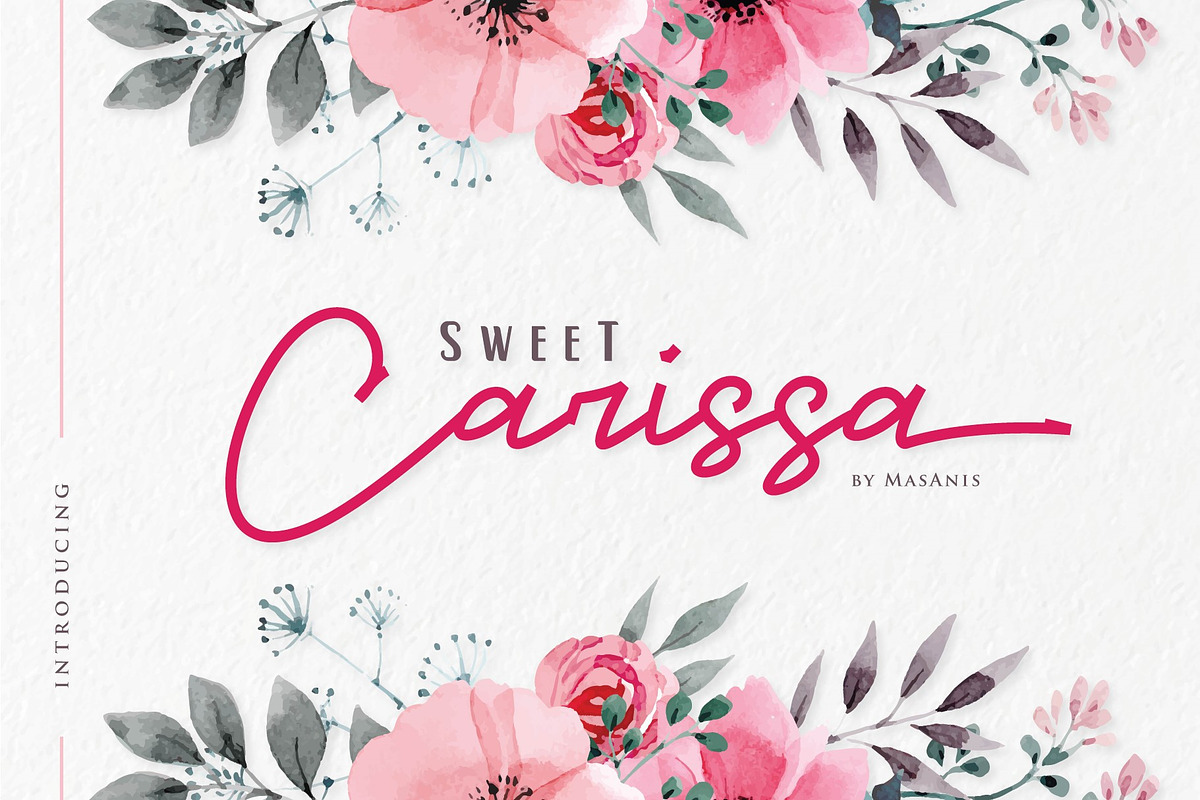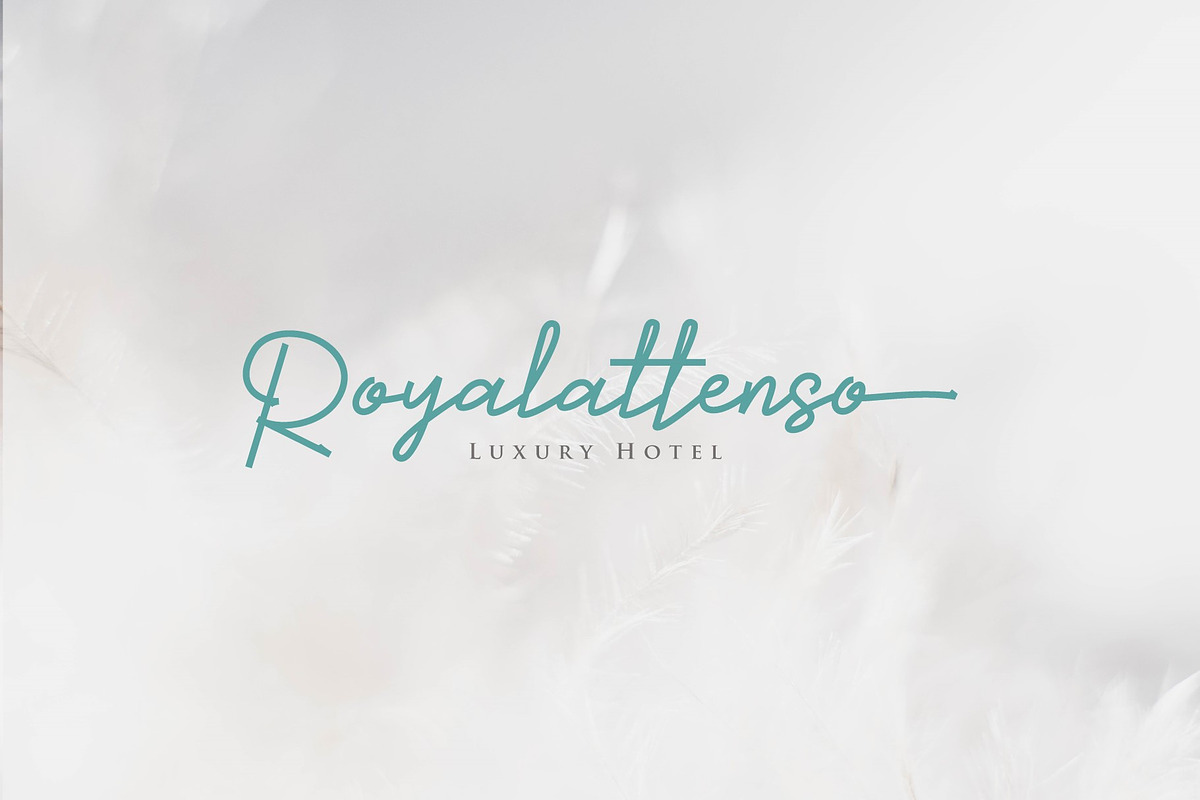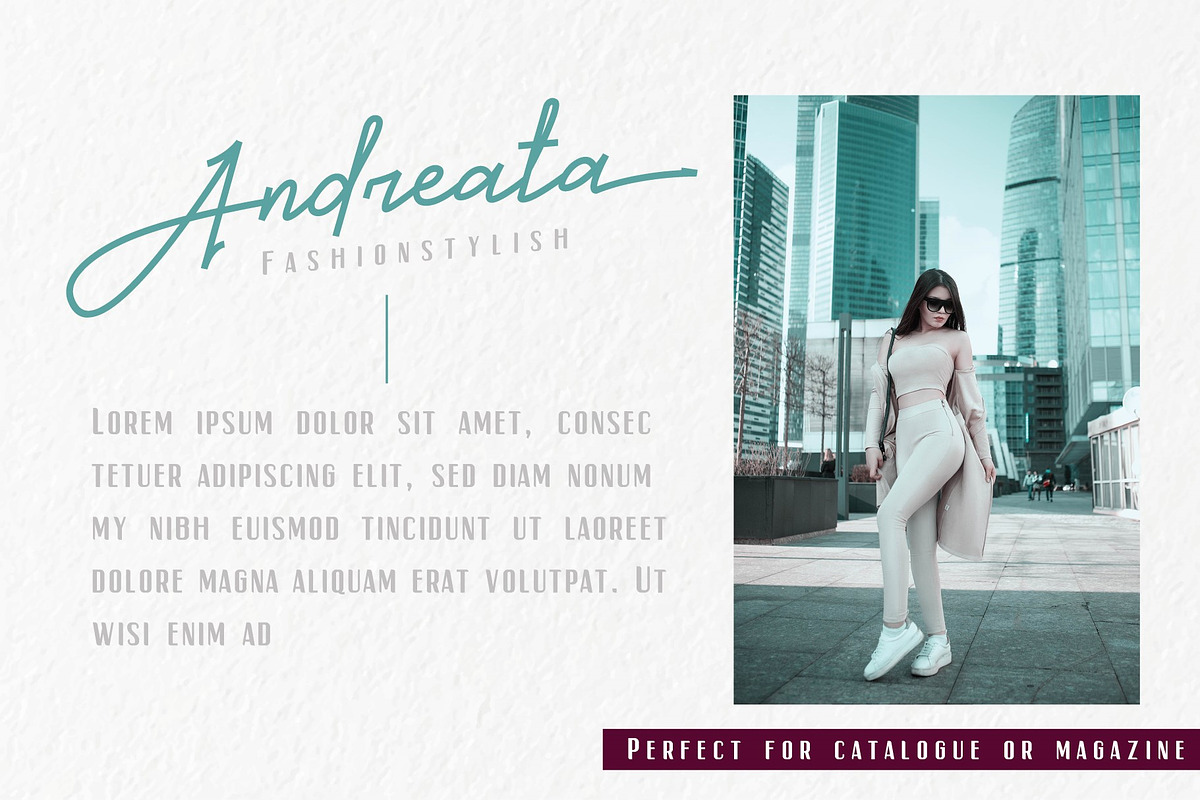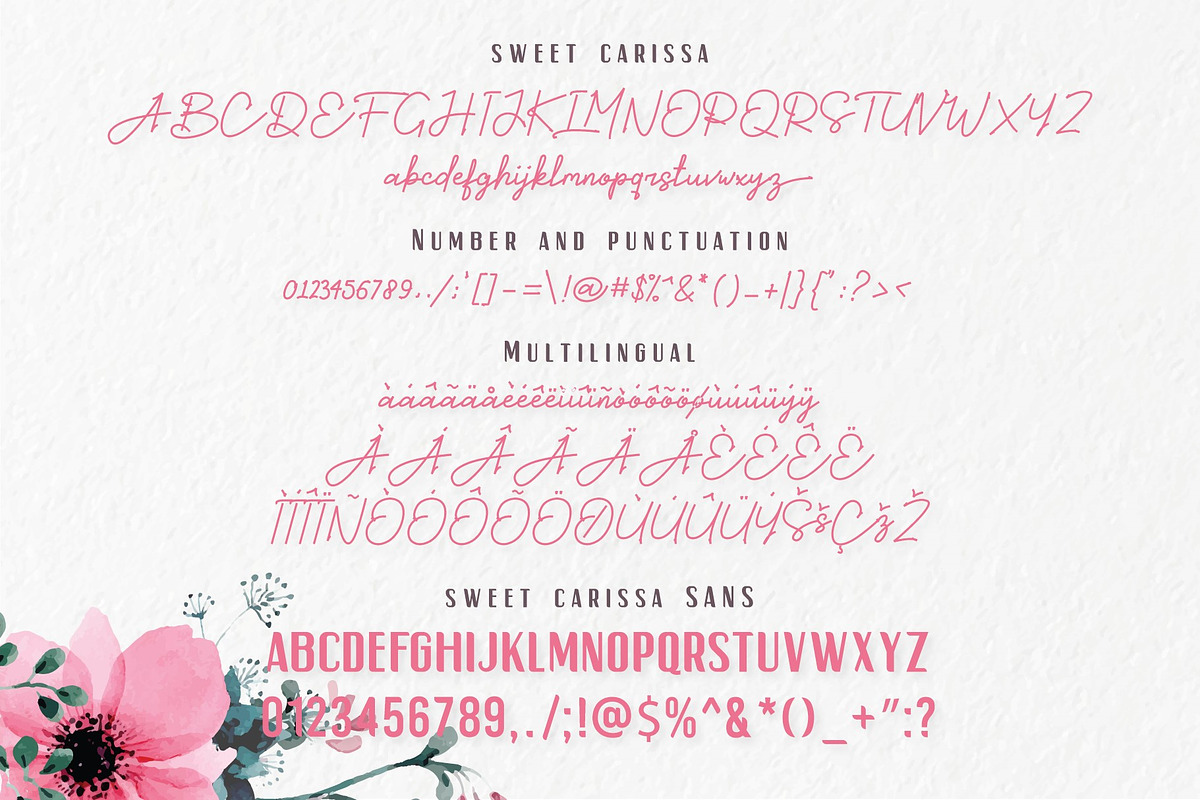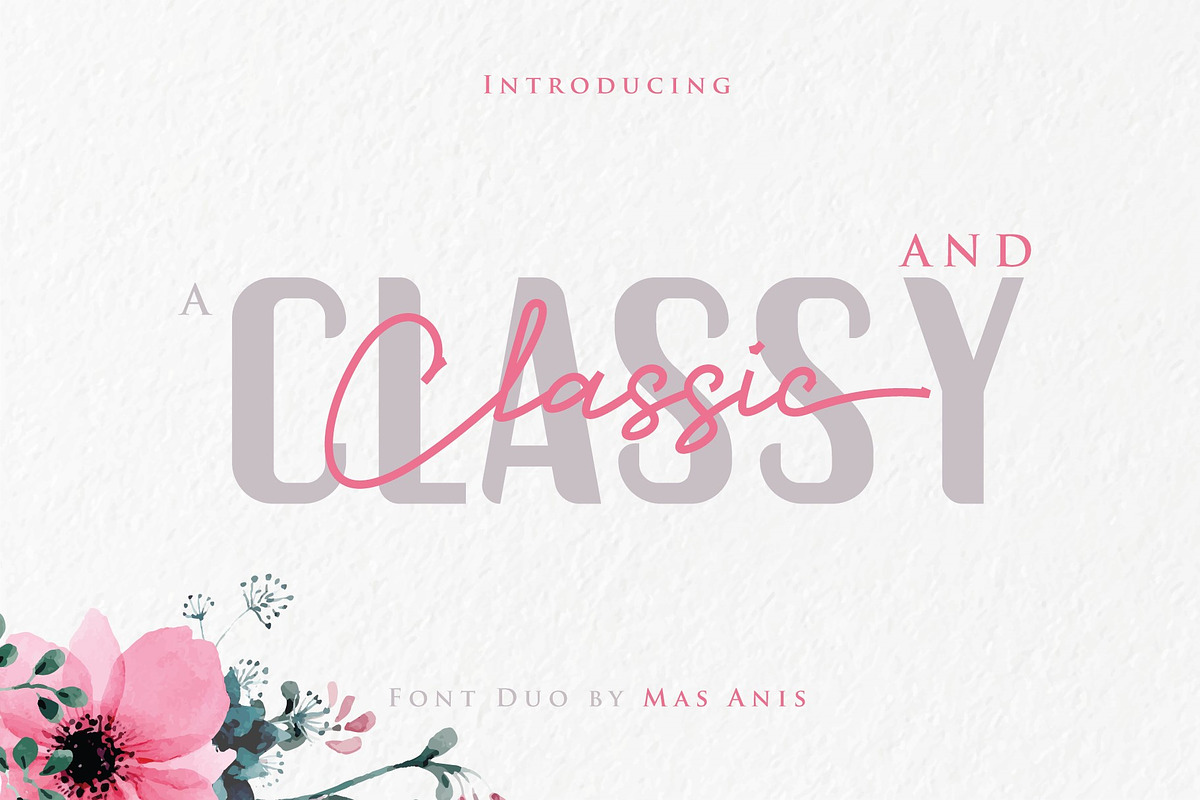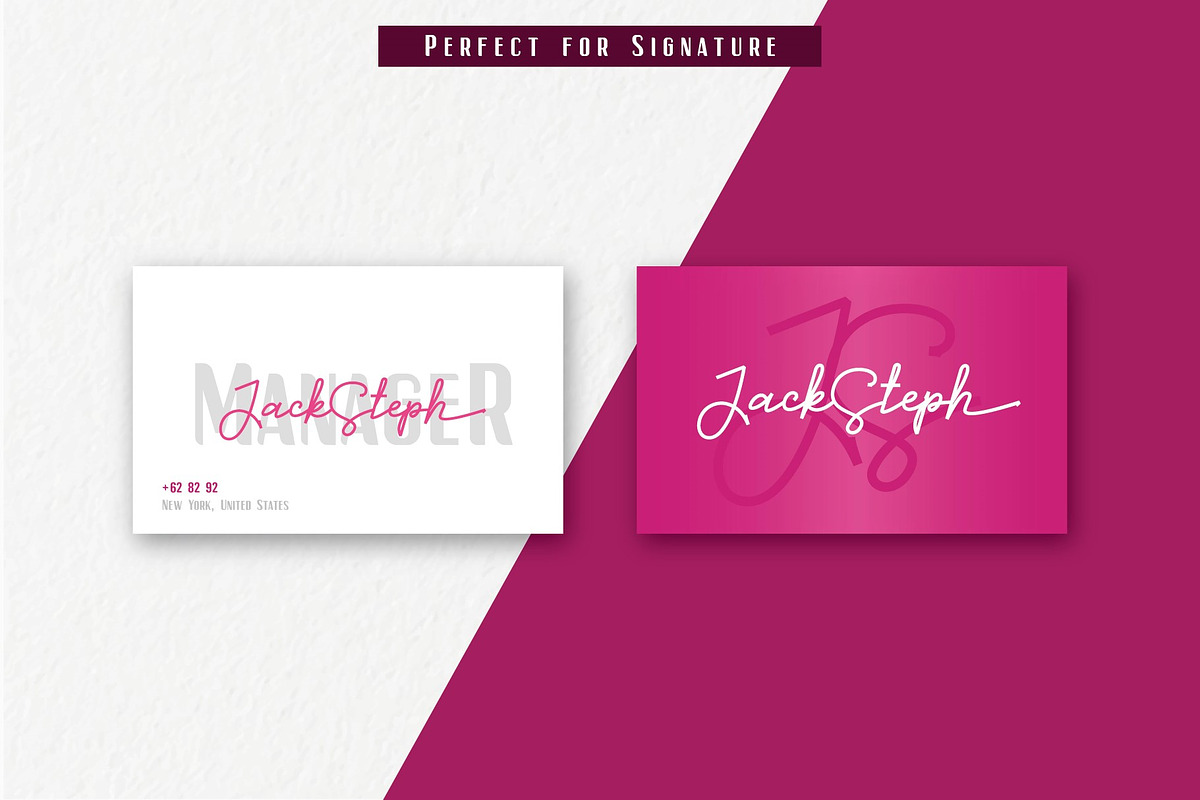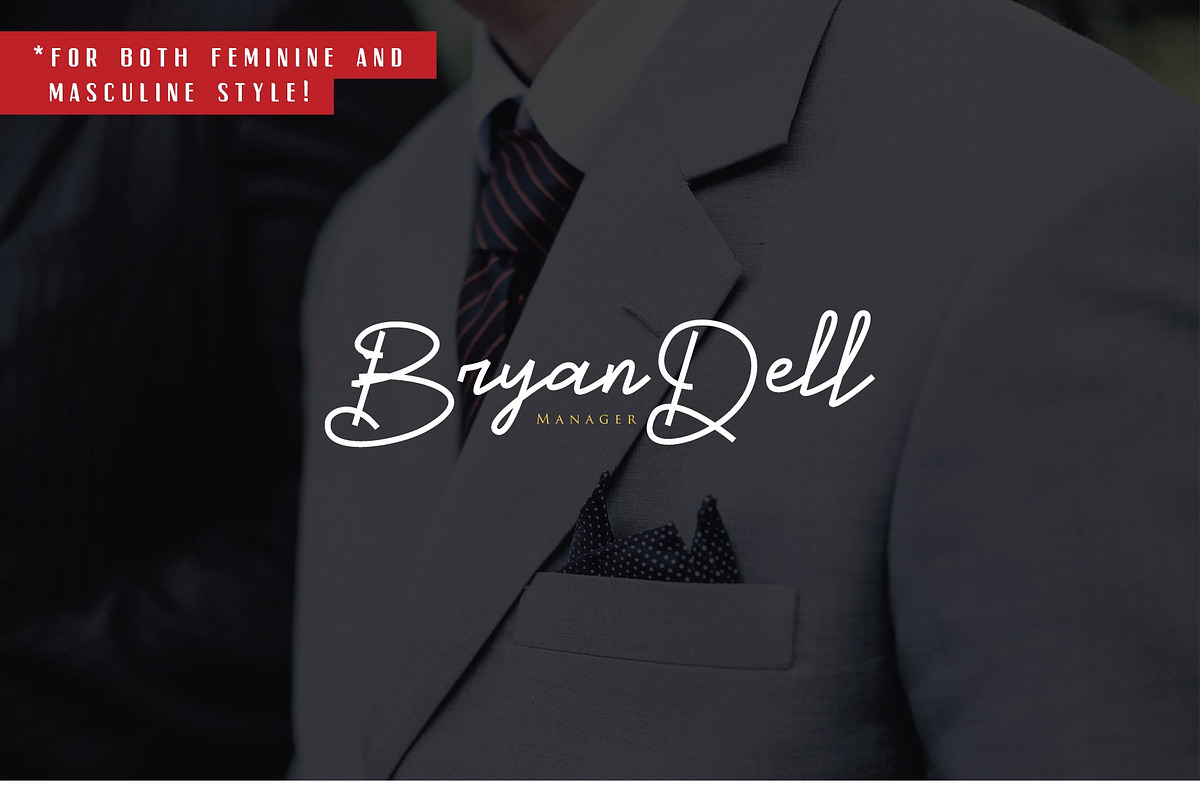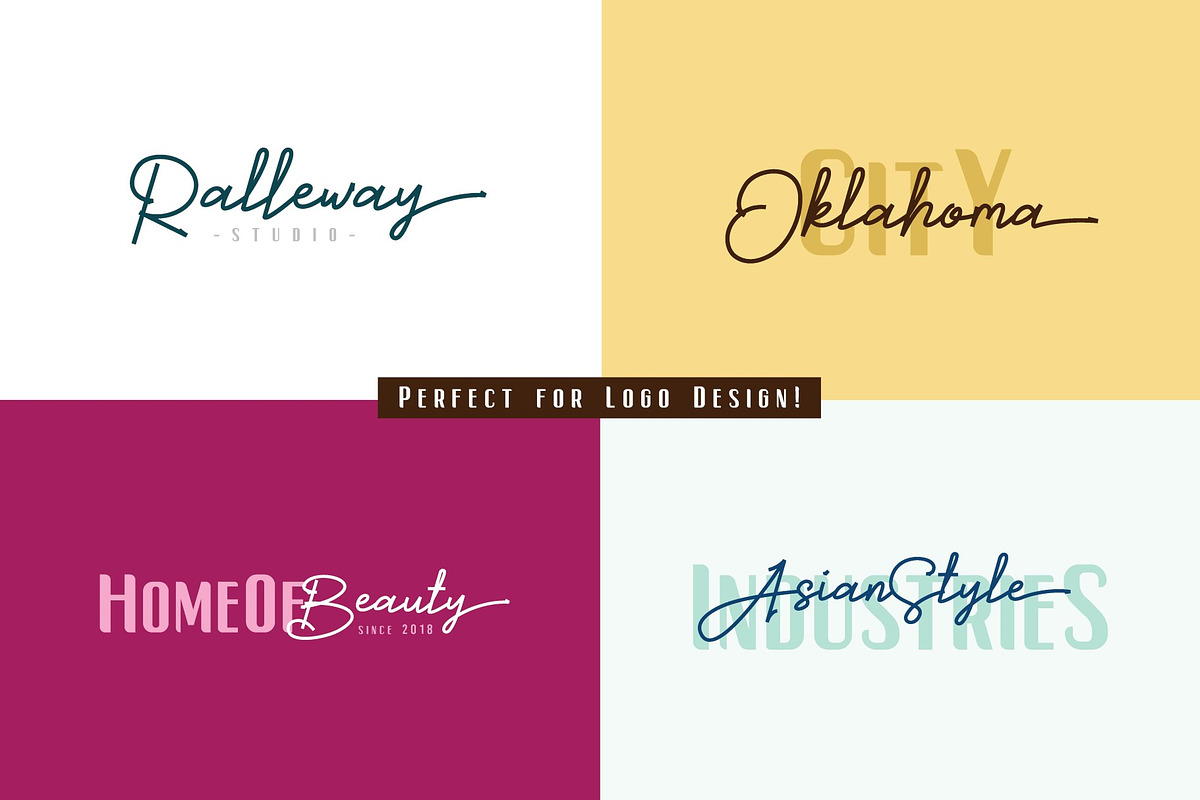
Sweet Carissa is a classic and lovely signature font duo, simple and classy font script and sans with perfect pairing combination, comes with opentype features such as stylistic alternates,initial and final form, and ligatures for the script version.
We keep this font looks elegant, romantic, lovely, classy, readable, stylish, catchy and easy to use. this font is the great choice for watermark on photography, fashion catalogue, modern lookbook design, signature logo design, quotes, album cover, business card, etc.
Multilingual support AÀÁÂÃÄÅCÇDÐEÈÉÊËIÌÍÎÏNÑOØÒÓÔÕÖUÙÜÚÛWYÝŸ?ŸÆ
The perfect font choice for watermarks, signatures, photography, invitation, logos, business cards, quotes, album covers.
- OpenType Features
- stylistic alternates
- lowercase final form
- ligatures